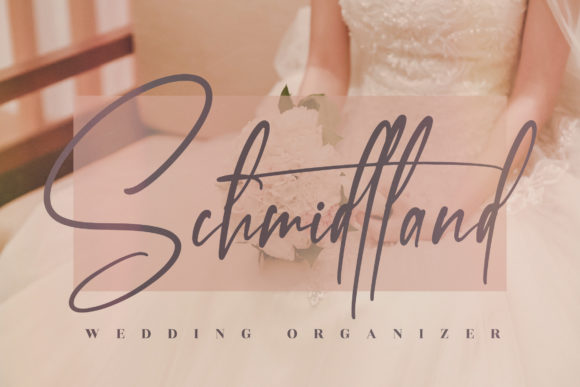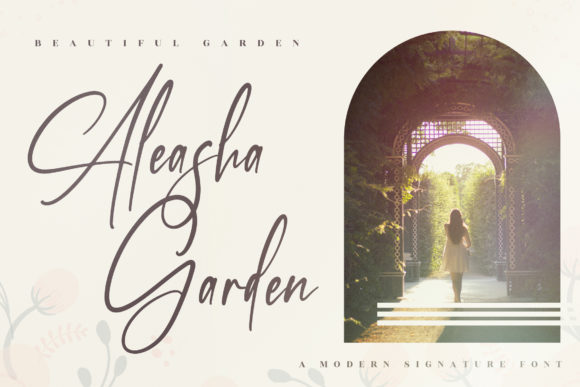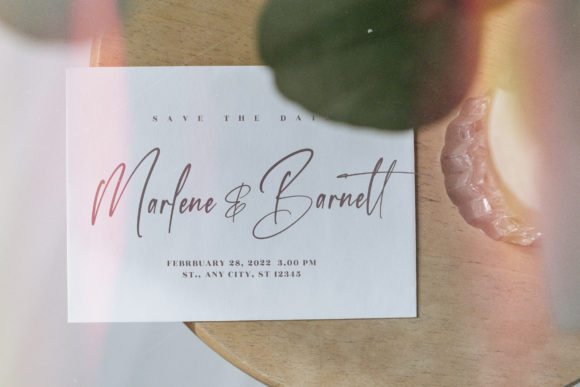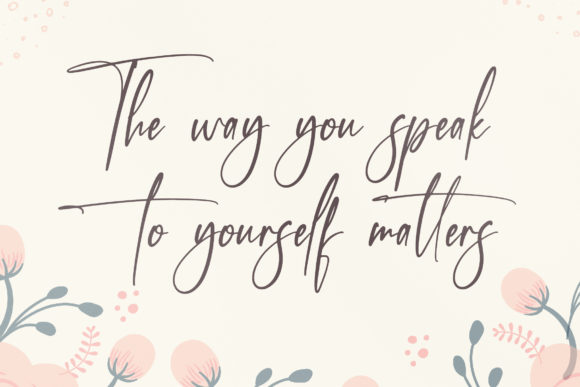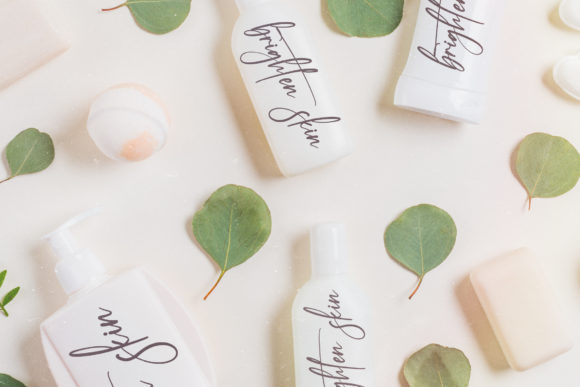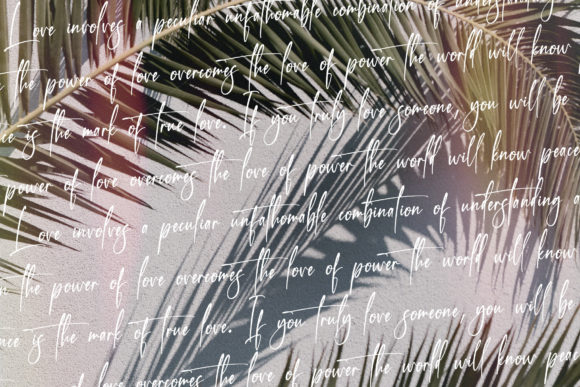
Amatha Story Font: Adding a Touch of Whimsy to Your Designs
Are you tired of using the same old fonts in your designs? Look no further than the Amatha Story Font, a lovely script font that is sure to add a touch of whimsy and charm to any project. With its charming, playful characters that seem to dance along the baseline, Amatha Story is the perfect choice for designers and crafters looking to add a bit of personality to their work.
What is Amatha Story Font?
Amatha Story Font is a script font that features beautiful, handwritten characters that are full of personality. The font is designed to look like it was written with a pen or pencil, giving it a warm and inviting feel that is perfect for a wide range of design projects. Whether you’re working on a logo, a poster, or a digital graphic, Amatha Story Font is sure to add a touch of elegance and sophistication.
Key Features of Amatha Story Font
- Charming, playful characters: The characters in Amatha Story Font are designed to be playful and charming, with a sense of movement and energy that is sure to capture the eye.
- Dancing baseline: The characters in Amatha Story Font seem to dance along the baseline, giving the font a sense of movement and energy.
- Handwritten feel: The font has a warm and inviting feel that is perfect for a wide range of design projects.
- Script font: Amatha Story Font is a script font, making it perfect for adding a touch of elegance and sophistication to your designs.
Why Use Amatha Story Font?
There are many reasons why you might want to use Amatha Story Font in your designs. Here are just a few:
- Add personality to your designs: Amatha Story Font is a great way to add a bit of personality and whimsy to your designs.
- Stand out from the crowd: With its unique and playful characters, Amatha Story Font is sure to make your designs stand out from the crowd.
- Perfect for creative projects: Amatha Story Font is perfect for creative projects, such as logos, posters, and digital graphics.
- Easy to read: Despite its playful nature, Amatha Story Font is easy to read, making it perfect for use in a wide range of design projects.
How to Use Amatha Story Font
Using Amatha Story Font in your designs is easy. Here are a few tips to get you started:
- Use it for headings: Amatha Story Font is perfect for use in headings and titles, where its playful and charming characters can really shine.
- Pair it with other fonts: Amatha Story Font pairs well with a wide range of other fonts, making it easy to create a unique and interesting design.
- Experiment with different colors: Amatha Story Font looks great in a wide range of colors, so don’t be afraid to experiment and find the perfect color for your design.
In conclusion, Amatha Story Font is a lovely script font that is sure to add a touch of whimsy and charm to any design project. With its charming, playful characters and dancing baseline, Amatha Story Font is the perfect choice for designers and crafters looking to add a bit of personality to their work. Whether you’re working on a logo, a poster, or a digital graphic, Amatha Story Font is sure to make your designs stand out from the crowd.
Tips and Variations
Here are a few tips and variations to help you get the most out of Amatha Story Font:
- Try different font sizes: Amatha Story Font looks great in a wide range of font sizes, so don’t be afraid to experiment and find the perfect size for your design.
- Experiment with different font styles: Amatha Story Font comes in a range of font styles, including regular, bold, and italic.
- Use it for digital and print projects: Amatha Story Font is perfect for use in both digital and print projects, making it a versatile addition to your font collection.